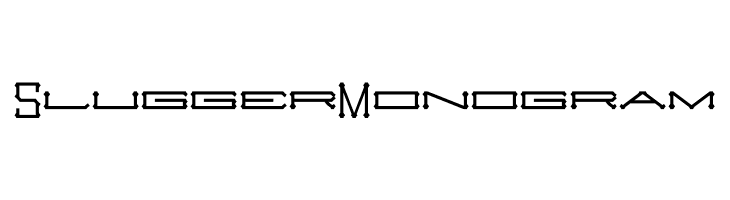
A modern, geometric font with a smooth, consistent stroke width.
A modern, geometric font with thin, consistent strokes and unique character designs.